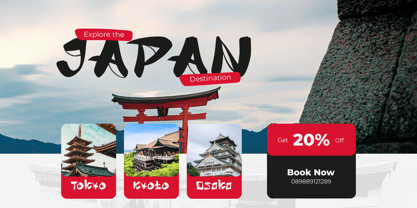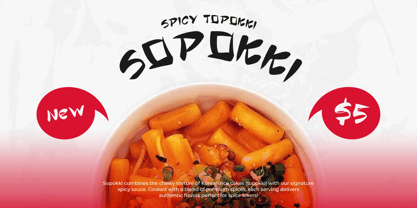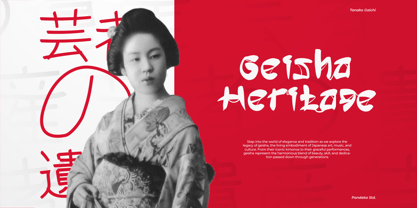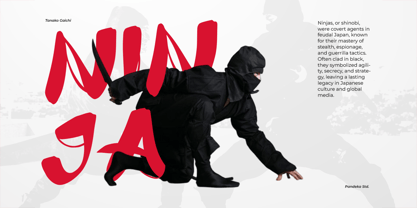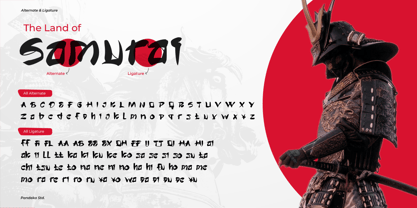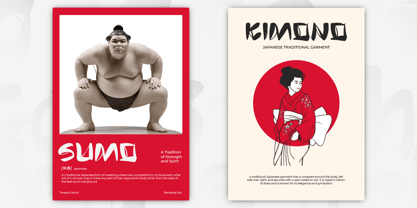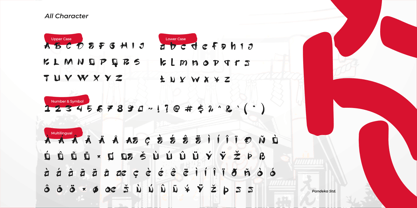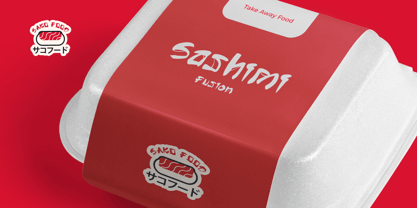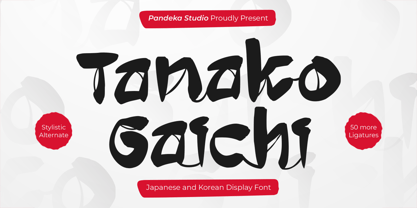
Tanako Gaichi
The Tanako Gaichi Font Family was designed by Sagara Nararya and published by Pandeka Studio. Tanako Gaichi contains 1 styles. More about this family
Tanako Gaichi – Japanese and Korean Display Font
Want to add a bold Japanese and Korean vibe to your designs? Tanako Gaichi is the perfect font to make your projects stand out! With its sleek and modern style, it's ideal for branding, posters, social media, and any creative work related to Japanese restaurants, samurai themes, Japanese logos, Korean products, or cultural events. Plus, with 50+ ligatures, your text will always look unique and captivating!
• 50+ Ligatures and alternates